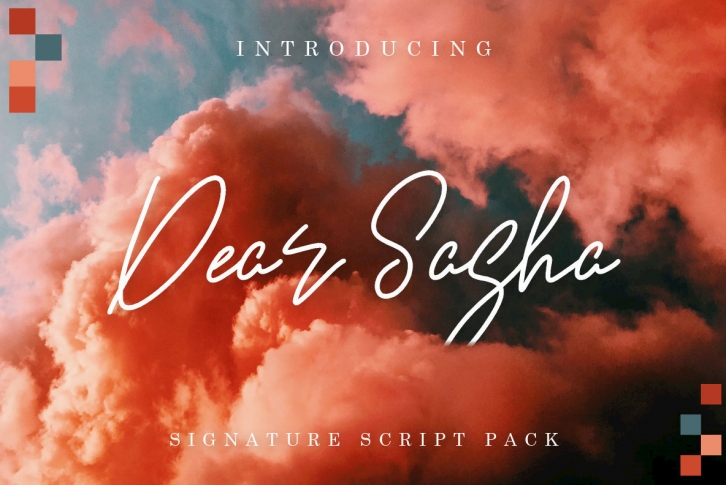
Dear Sasha is a monoline script full of rises and dips guaranteed to bring your designs to life! If you're after that "signature style" font, Dear Sasha delivers just that. Throw it on wedding invites, business logos, promotional materials, or prints and let this typeface do all the work for you.